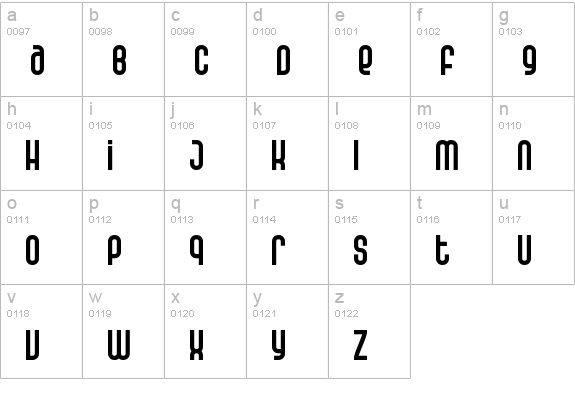
False Positive BRK Font Details
The False Positive BRK font is a unique and eye-catching typeface that combines modern elements with a touch of retro charm. Its bold and geometric design makes it perfect for headlines, logos, and branding projects that require a strong and impactful look. The font features sharp edges and clean lines, giving it a contemporary and edgy feel. One of the best things about the False Positive BRK font is that it is available for free download at FontsMarket.com. This means that you can easily access and use this stylish font in your design projects without any cost. Whether you're a graphic designer looking to add a fresh new font to your collection or a business owner in need of a striking typeface for your marketing materials, the False Positive BRK font is a versatile and versatile choice that is sure to make a statement. Download it today and elevate your designs with this modern and dynamic font.